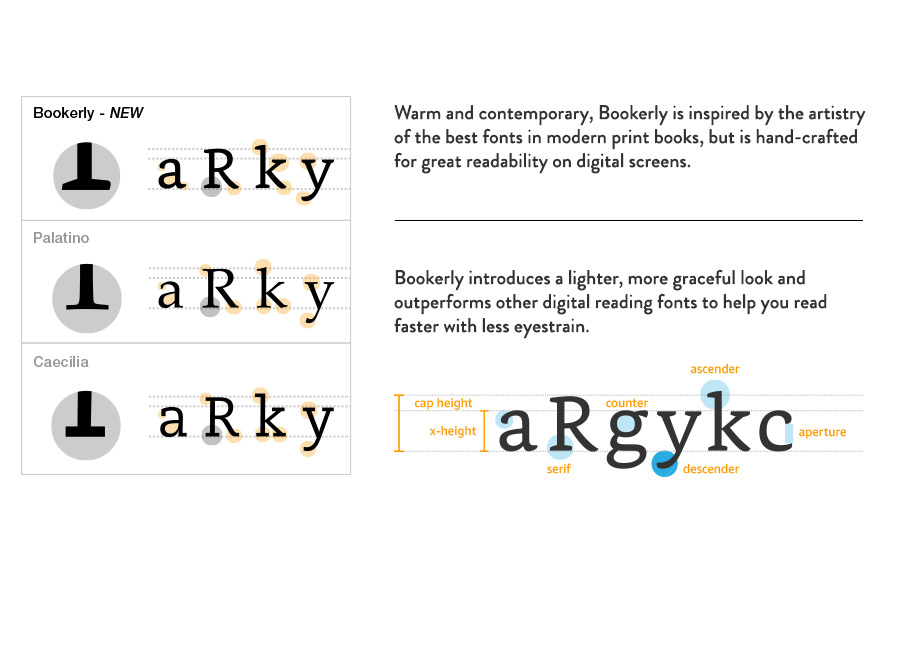
Kindle Announces New $119 Paperwhite E-Reader With A Font That’s Easy On The Eyes
Amazon has just announced the availability of a new $119 Paperwhite e-reader with a 6-inch 300ppi display and a new font and book layout system that will make it easier to dig into The Martian during summer vacation. The reader will ship on June 30 and is available for pre-order now.
The reader is essentially the same as the previous Paperwhite – a bright, almost white glare-free screen inside a nearly featureless slab of black plastic – but this model has “twice as many pixels” as the previous version and will display “laser quality text.” Font nerds will rejoice because Amazon has created a new typeface, Bookerly, that they claim is easier to read. They will also add a new “typesetting engine” that will improve book layout even at larger font sizes.
The all-new Kindle Paperwhite now offers Bookerly, an exclusive font crafted from the ground up for reading on digital screens. Warm and contemporary, Bookerly is inspired by the artistry of the best fonts in modern print books, but is hand-crafted for great readability at any font size.